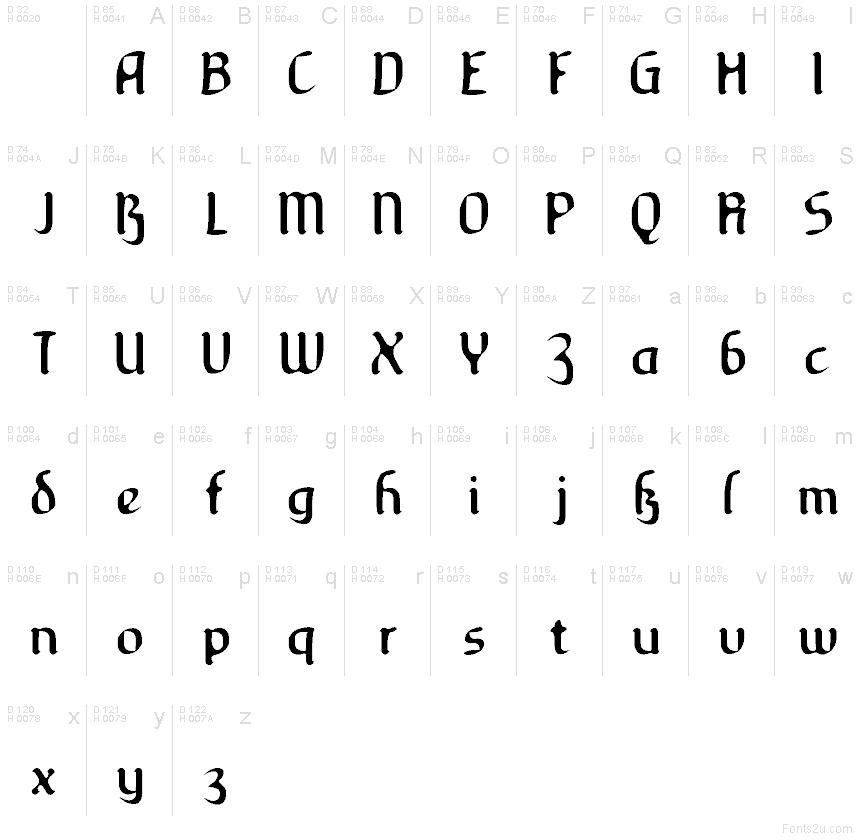
CSBlackedDrawn-Regular Demo
CS Blacked Drawn font by Craft Supply Co. is an ornamental medieval gothic font carrying artistic flair and elegance. The characters display an expressive character with historical charm as letters get decorated to stand out through a unique design. Though aligned vertically, letters differ in orientation resulting in twisted letter structures.